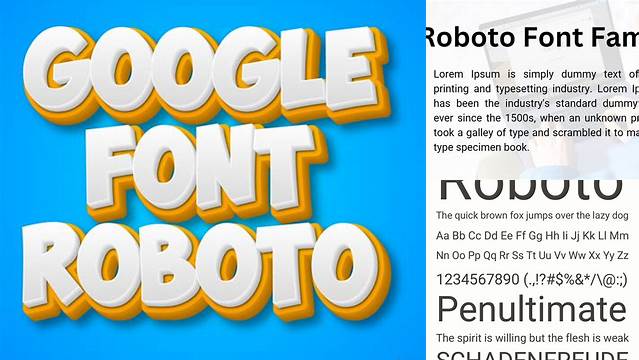
Deep Dive into Roboto: Why It's a Popular Choice
Okay, let's talk about Roboto. This sans-serif font, designed by Christian Robertson, is a cornerstone of modern web design. It's the default font for Android and has gained widespread popularity due to its versatility, readability, and clean aesthetic. Roboto is loved for a few key reasons: it's legible at various sizes, making it perfect for everything from headlines to body text; it has a modern and friendly appearance; and, importantly, it's available for free through Google Fonts. Its clean and geometric forms make it highly readable on screens, providing an excellent user experience across all devices. Roboto's versatility allows it to be used effectively in various design contexts, from minimalist websites to complex applications. The consistency in its appearance across different browsers and devices is a significant advantage, too. It's designed for the web. Because it's a Google font, it's optimized for web use. The font is designed to render well on screens, which is very important. It also has an extensive range of weights and styles. This allows designers to create visual hierarchy and emphasize important information. For example, you can use bold for headings, italics for emphasis, and different weights for varying levels of importance. Roboto's popularity isn't just about aesthetics; it's also about practicality. The font is well-suited for different content types and layouts. It's designed to handle large amounts of text, making it ideal for blogs, articles, and other content-heavy websites. Its readability is a key feature. Readability is absolutely essential for online content. Roboto is designed to be easy on the eyes, even during extended reading sessions. This enhances user engagement and reduces eye strain, leading to a more positive user experience. Its widespread use means it’s familiar to most users. Because Roboto is so common, users are already familiar with its look and feel. This familiarity can create a sense of trust and ease when they encounter it on your website. Lastly, Google Fonts hosts the font. You can easily integrate Roboto into your website using Google Fonts, which is free and straightforward. This makes it accessible to anyone, regardless of their technical skill level.
Exploring Roboto's Characteristics
Now, let's get into more detail about what makes Roboto tick. Roboto's design is both modern and functional, blending geometric forms with friendly curves. This unique combination makes it exceptionally readable and versatile, suitable for a wide range of applications. Its structure allows for a clean and clear presentation of text, essential for a pleasant user experience. Its legibility is a key characteristic. Roboto's well-defined letterforms ensure that text is easily readable at various sizes and on different devices. The font's design minimizes eye strain, making it comfortable to read for extended periods. This readability is essential for keeping users engaged with your content. Its versatility means it works for different purposes. Roboto comes in various weights and styles, from light to bold and italic, making it perfect for everything from headlines to body text. This adaptability lets designers create a visual hierarchy and emphasize important content. Roboto's neutrality is a major advantage. Its neutral design makes it blend seamlessly with various design aesthetics. It doesn't overshadow other design elements but rather complements them, allowing your content to take center stage. This neutrality makes it suitable for brands with diverse styles. It’s a font that supports multiple languages. Roboto has excellent support for various languages, making it a great choice for websites with a global audience. This linguistic support ensures that your website looks consistent and professional, regardless of the user's language. Also, it's well-suited for different content types. Whether you're designing a blog, a corporate website, or an e-commerce platform, Roboto adapts gracefully. Its readability and visual appeal make it perfect for all content types. Roboto's wide adoption is another characteristic. Its popularity means that users are already familiar with the font, creating an immediate sense of familiarity and trust. The common knowledge of Roboto ensures that users won't be distracted by an unfamiliar font. It's also optimized for web use. Because it's specifically designed for the web, Roboto ensures a smooth and seamless experience across all devices. Its optimized rendering keeps your website looking sharp and professional, improving user satisfaction. Overall, Roboto is an excellent choice for web typography, blending readability, versatility, and accessibility, making it a great choice for websites of all kinds.
The Magic of display=swap
for Font Loading
Now, for the technical wizardry: the display=swap
parameter. This is a crucial part of optimizing your font loading strategy. By adding &display=swap
to your Google Fonts URL (e.g., fonts.googleapis.com/css?family=Roboto&display=swap
), you tell the browser how to handle the font loading process. Without this, the browser might hide text until the font loads, leading to a blank screen or a flash of unstyled text. With display=swap
, the browser initially displays the text using a system font (like Arial or Times New Roman). Once Roboto loads, the browser then swaps the system font with Roboto. This simple addition significantly improves the user experience by ensuring that text is visible almost immediately, eliminating that annoying blank screen or FOUC. It's a win-win situation. The user sees the content immediately, and the transition to the custom font is smooth and seamless. display=swap
avoids FOUC. FOUC can be incredibly disruptive and frustrating for users. By swapping fonts, display=swap
ensures a better user experience. The user can start reading your content right away, improving engagement. This, in turn, can keep users on your website longer. Also, it improves perceived performance. Even though the font is still loading in the background, display=swap
creates the illusion that your website is faster because the text is immediately visible. Perception is everything. Faster perceived loading times boost the user experience and reduce bounce rates. This optimization enhances SEO. Faster loading times and a smoother user experience lead to improved search engine rankings. Search engines value websites that offer a positive user experience, and display=swap
helps achieve that. It's also easy to implement. Adding &display=swap
to your Google Fonts URL is very straightforward and doesn't require any advanced technical skills. It's a simple tweak, but it yields significant results. Also, it's a universally supported feature. display=swap
is supported by all modern browsers, ensuring that it works on all devices. This broad support makes it a reliable and effective optimization strategy. It is a key element in any modern website's font loading strategy, ensuring a faster, more enjoyable, and visually appealing experience for everyone.
How display=swap
Works Behind the Scenes
Let's unpack the mechanics of display=swap
and see what makes it so effective. The browser's behavior changes with display=swap
. When the browser encounters the CSS file containing the Google Font import with display=swap
, it does the following: First, it renders the text using a system font. The system font (like Arial or Times New Roman) is instantly available on the user's device. This allows your website to display text immediately. Then, the browser downloads the custom font (Roboto, in our case) in the background. This download happens asynchronously, meaning it doesn’t block the rendering of the page. After the font is downloaded, the browser swaps the system font with Roboto. This swap occurs without any noticeable delay or visual disruption, ensuring a smooth transition. The entire process is designed to provide an optimal user experience. The user sees text immediately, and the visual transition to the custom font is nearly seamless. This is because the system font is used as a temporary placeholder. The result is a faster perceived loading time and a better overall user experience. Also, display=swap
ensures better visibility. The user can start reading your content immediately instead of facing a blank screen or a flash of unstyled text. This leads to greater user engagement and reduced bounce rates. It also impacts SEO. By providing a faster and more visually appealing user experience, display=swap
improves your search engine rankings. The goal is to keep your website at the top. The use of display=swap
is a modern best practice for web font loading. It's a simple yet effective method for optimizing your website's performance and user experience. By implementing display=swap
, you're taking a significant step toward creating a more accessible, user-friendly, and search-engine-friendly website.